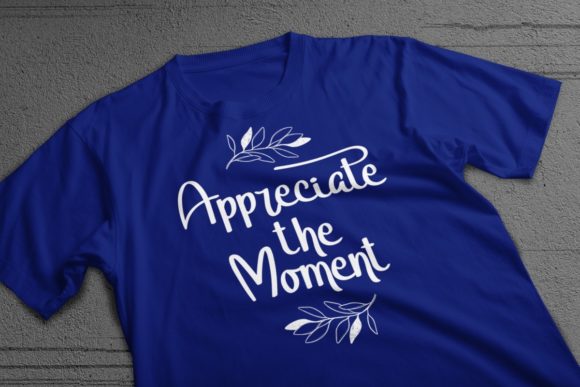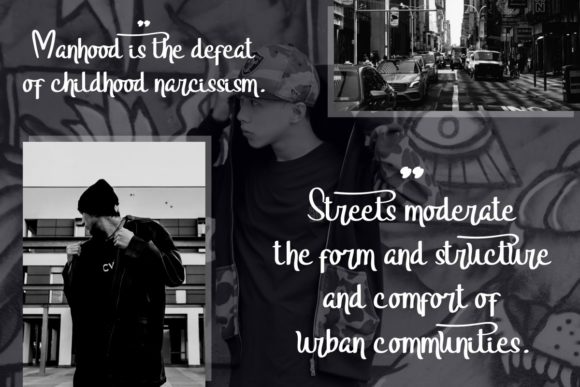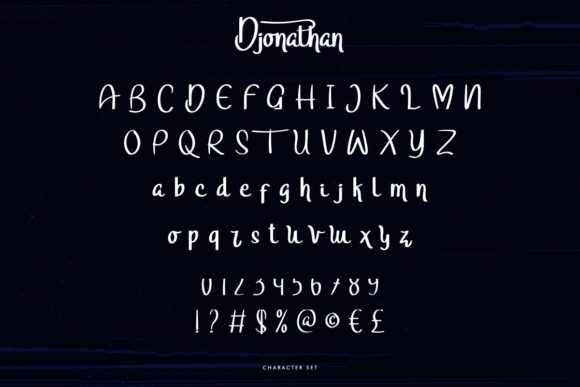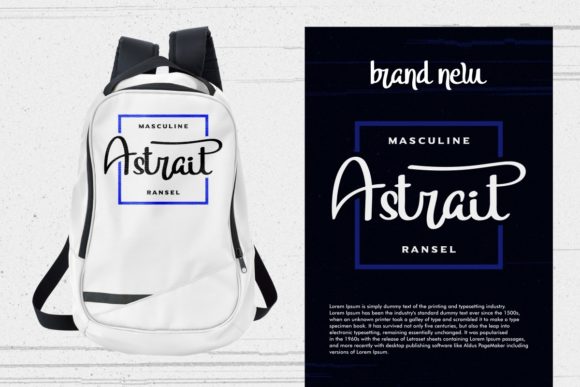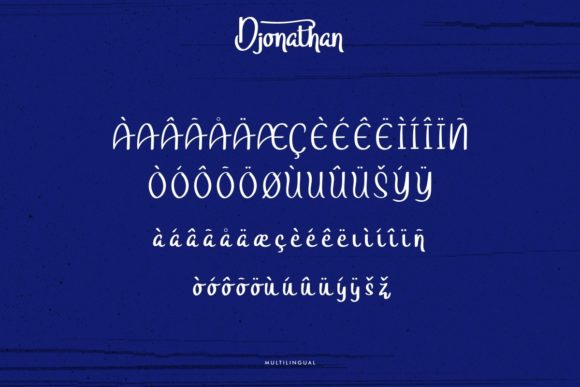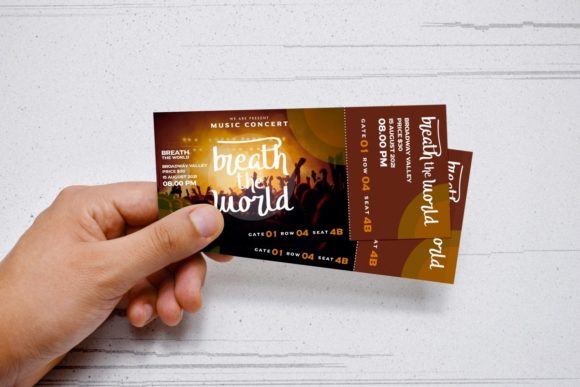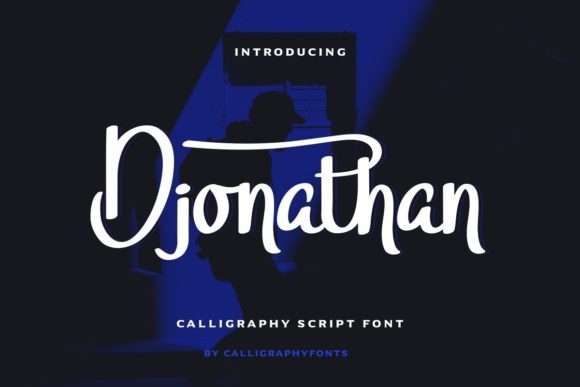
Djonathan Font: Add a Touch of Romance to Your Designs
Are you looking for a font that can add a romantic feel to your designs? Look no further than Djonathan, an enchanting handwritten font that is perfect for a wide range of applications. From greeting cards to headlines, Djonathan is a versatile script font that is sure to impress.
What Makes Djonathan Special?
Djonathan is a beautifully crafted font that is designed to add a touch of elegance and sophistication to your designs. With its flowing script and delicate lines, this font is perfect for creating romantic and whimsical designs that will capture the hearts of your audience.
One of the standout features of Djonathan is its versatility. This font can be used for a wide range of applications, from:
- Headlines and titles
Djonathan is PUA (Private Use Area) encoded, which means that you can access all of the glyphs and swashes with ease. This makes it simple to customize your designs and add your own personal touch.
With PUA encoding, you can:
- Access a wide range of glyphs and swashes
- Easily customize your designs
- Add your own personal touch
Why Choose Djonathan?
So why choose Djonathan for your next design project? Here are just a few reasons:
- Unique and eye-catching: Djonathan is a one-of-a-kind font that is sure to grab attention.
- Versatile: This font can be used for a wide range of applications.
- Elegant and sophisticated: Djonathan adds a touch of elegance and sophistication to any design.
- Easy to use: With PUA encoding, you can easily access all of the glyphs and swashes.
Tips for Using Djonathan
Here are a few tips for using Djonathan in your designs:
- Pair with other fonts: Djonathan pairs well with other fonts, such as sans-serif fonts and serif fonts.
- Experiment with colors: Try using different colors and textures to add depth and interest to your designs.
- Use for headlines and titles: Djonathan is perfect for headlines and titles, and can add a touch of elegance and sophistication to your designs.
Djonathan is a beautiful and versatile handwritten font that is perfect for adding a romantic feel to your designs. With its flowing script and delicate lines, this font is sure to impress. And with PUA encoding, you can easily access all of the glyphs and swashes to customize your designs.